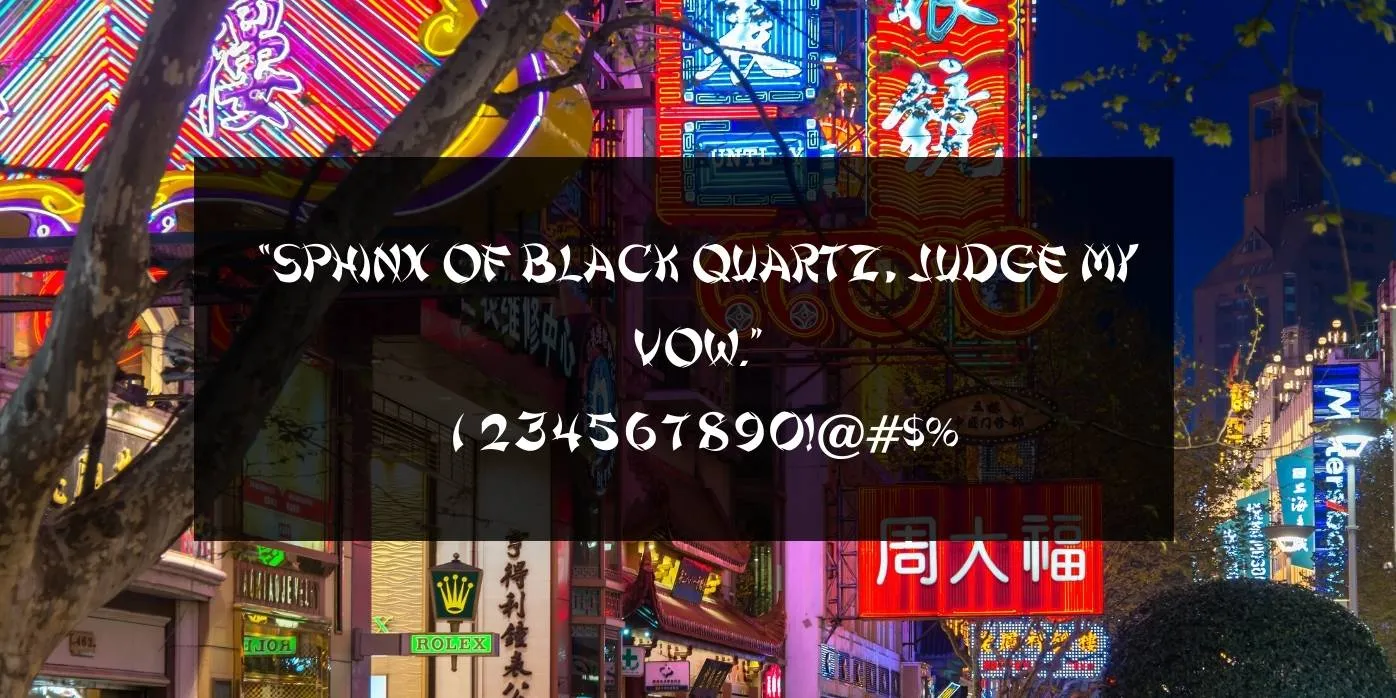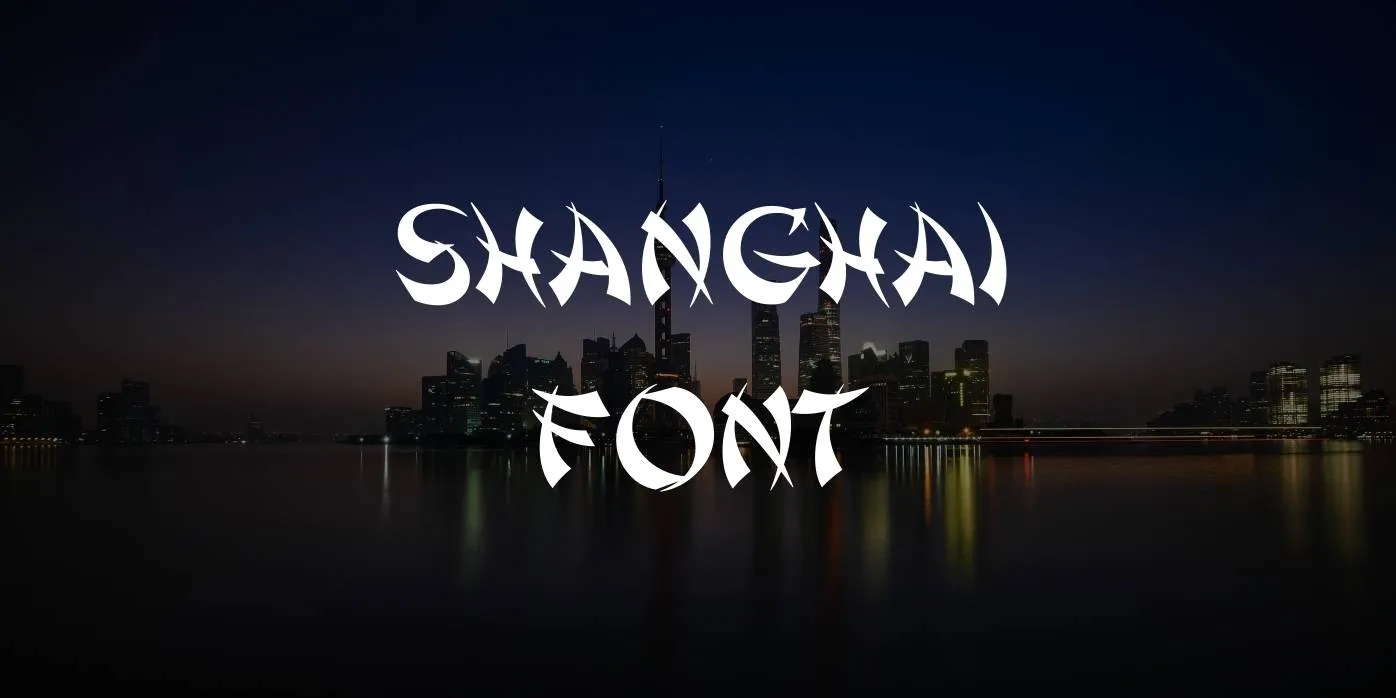
Shanghai Font
Here, we are going to present the Shanghai font which was developed and shared by PrimaFont. This typeface belongs to the fancy font family. It is a strong and gorgeous typeface that is suitable for both headlines and body text. This awesome font family includes eight special styles Thin, light, regular, medium, heavy, bold, extra bold, and black with matching italics.
It is a perfect choice for any type of project that needs a fancy font with a modern touch. This family is perfect for various designs. The online text generator tool of this family is useful for a variety of designs.